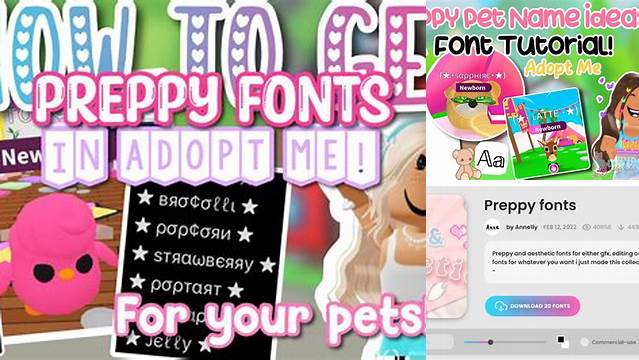
Adopt Me Fonts: Copy & Paste Preppy Roblox Text Styles
Hey guys! Are you a Roblox Adopt Me enthusiast looking to spice up your in-game text? Want to make your messages pop and stand out from the crowd? You've come to the right place! In this guide, we'll dive deep into the world of Adopt Me fonts, exploring how to copy and paste preppy Roblox text to give your game a fresh and stylish look. We'll cover everything from the basics of font customization to advanced tips and tricks, ensuring you become a true font master in Adopt Me. So, let's get started and transform your in-game communication into a visual masterpiece!
Why Use Custom Fonts in Adopt Me?
Let's be real, the default font in Adopt Me is, well, a bit basic. It gets the job done, but it doesn't exactly scream personality or flair. That's where custom fonts come in! Using different fonts can dramatically enhance your in-game experience. Custom fonts allow you to express your unique style, add a touch of preppy Roblox aesthetics, and make your messages more engaging and visually appealing. Imagine sending a chat message in a cute, cursive font or creating a bold, eye-catching sign for your in-game house. The possibilities are endless! Moreover, using distinct fonts can help you stand out in a crowded server. When your messages look different, people are more likely to notice and interact with you. This can be especially useful for trading, making friends, or simply showcasing your creativity. So, why settle for the ordinary when you can make your text extraordinary? Let's explore how you can copy and paste these fantastic fonts into Adopt Me.
Understanding Preppy Roblox Fonts
So, what exactly are preppy Roblox fonts? The term "preppy" usually refers to a classic, polished, and slightly formal style, often associated with private schools and a sophisticated aesthetic. In the context of Roblox, preppy fonts embody this elegance and refinement. Think clean lines, stylish curves, and a touch of playfulness. These fonts often include elements like cursive scripts, elegant serifs, and charming sans-serif styles. They're perfect for creating a sophisticated and aesthetically pleasing vibe in your Adopt Me game. When choosing a preppy font, consider the overall look you're aiming for. Do you want something delicate and feminine? A bold and confident style? Or perhaps a fun and quirky font? There's a wide variety of preppy fonts available, each with its own unique charm. Popular choices include script fonts like Brush Script MT, elegant serifs like Times New Roman, and stylish sans-serifs like Montserrat. Experiment with different options to find the fonts that best suit your personality and in-game aesthetic. Remember, the goal is to enhance your communication and make your messages stand out in a visually appealing way. By understanding the nuances of preppy Roblox fonts, you can elevate your Adopt Me experience to a whole new level of style and sophistication.
Finding and Copying Preppy Fonts
Alright, guys, let's get to the fun part: finding and copying those awesome preppy fonts! The internet is a treasure trove of font resources, with countless websites offering a wide variety of styles to choose from. One of the easiest ways to find fonts is by using online font generators. These tools allow you to type in your desired text and instantly see it rendered in various fonts. Some popular font generator websites include LingoJam, CoolSymbol, and TextFontMaker. These platforms offer a user-friendly interface where you can explore different fonts, customize your text, and easily copy the results. Another great resource is dedicated font websites like DaFont, Google Fonts, and Fontspace. These websites host a vast library of fonts, many of which are free to use. You can browse through categories, search for specific styles, and even preview how the fonts will look in different sizes and contexts. When you find a font you love, simply copy the text generated by the font tool or copy the font itself if the website allows downloading. Once you've copied the text, you're ready to paste it into Roblox Adopt Me. Keep in mind that not all fonts will work perfectly in Roblox due to compatibility issues. It's always a good idea to test the font in a private chat or small group before using it extensively in public. By exploring these various resources and experimenting with different fonts, you'll soon discover a collection of preppy styles that perfectly complement your Adopt Me persona.
Tips for Using Fonts Effectively in Adopt Me
Alright, you've mastered the art of copying and pasting preppy fonts into Adopt Me, but let's take it a step further. Using fonts effectively is about more than just picking a pretty style; it's about communicating clearly and enhancing your overall in-game experience. Here are some tips to help you become a font pro in Adopt Me. First and foremost, readability is key. While fancy fonts can look amazing, make sure your text is still easy to read. Avoid fonts that are too ornate or have excessively small characters. Choose fonts that are clear and legible, especially for important messages like trade requests or instructions. Consider your audience. The font you choose should be appropriate for the context of your message and the people you're communicating with. A cute, bubbly font might be perfect for chatting with friends, but a more professional font might be better for making announcements or advertising your services. Use fonts sparingly. Don't go overboard with different fonts in a single message or area. Too many fonts can look cluttered and confusing. Stick to one or two complementary fonts to maintain a cohesive and stylish look. Pay attention to contrast. Make sure your font color contrasts well with the background color of the chat box or sign. This will make your text easier to read and prevent eye strain. Experiment with different font sizes. Adjusting the font size can help you emphasize certain words or phrases. Use larger fonts for headings or important information, and smaller fonts for supporting details. By following these tips, you can use fonts effectively to enhance your communication, express your personality, and create a visually appealing experience in Adopt Me.
Font Combinations and Design Ideas
Now that you're a font expert, let's explore some creative font combinations and design ideas to really elevate your Adopt Me game. Mixing and matching fonts can add depth and visual interest to your messages and signs. However, it's important to choose fonts that complement each other rather than clash. A classic combination is pairing a script font with a sans-serif font. For example, you could use a cursive script for headings and a clean sans-serif for body text. This creates a nice balance between elegance and readability. Another great option is to combine different weights of the same font family. For instance, you could use a bold version for emphasis and a regular version for general text. This approach provides visual variation while maintaining a cohesive look. When designing signs for your house or shop, consider using a larger, bolder font for the main title and a smaller, more readable font for details. You can also use different font colors to highlight key information or create a visual hierarchy. For a preppy aesthetic, try incorporating fonts with elegant serifs or stylish curves. Think about using pastel colors or soft gradients to complement your font choices. Don't be afraid to experiment with different combinations and design elements to find a style that truly reflects your personality and vision. Remember, the goal is to create a visually appealing and informative space that enhances the Adopt Me experience for you and your visitors. By exploring these font combinations and design ideas, you can transform your in-game communication into a work of art.
So there you have it, guys! You're now equipped with the knowledge and skills to master Adopt Me fonts and add a touch of preppy flair to your Roblox experience. From understanding the basics of font customization to exploring creative font combinations, we've covered everything you need to know to transform your in-game communication. Remember, using custom fonts is a fantastic way to express your unique style, stand out from the crowd, and make your messages more engaging and visually appealing. Whether you're chatting with friends, trading pets, or designing your dream house, the right font can make all the difference. Don't be afraid to experiment with different styles, try new combinations, and let your creativity shine. The world of preppy Roblox fonts is vast and exciting, so dive in and discover the endless possibilities. With a little practice and a lot of imagination, you'll be crafting stunning text designs that will impress everyone in Adopt Me. So go ahead, guys, and make your mark on the Adopt Me universe with your amazing font skills! Happy fonting!